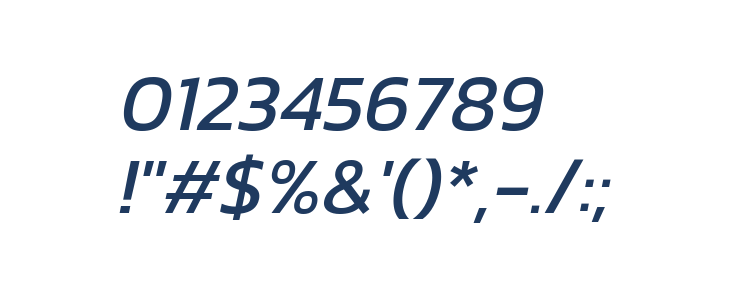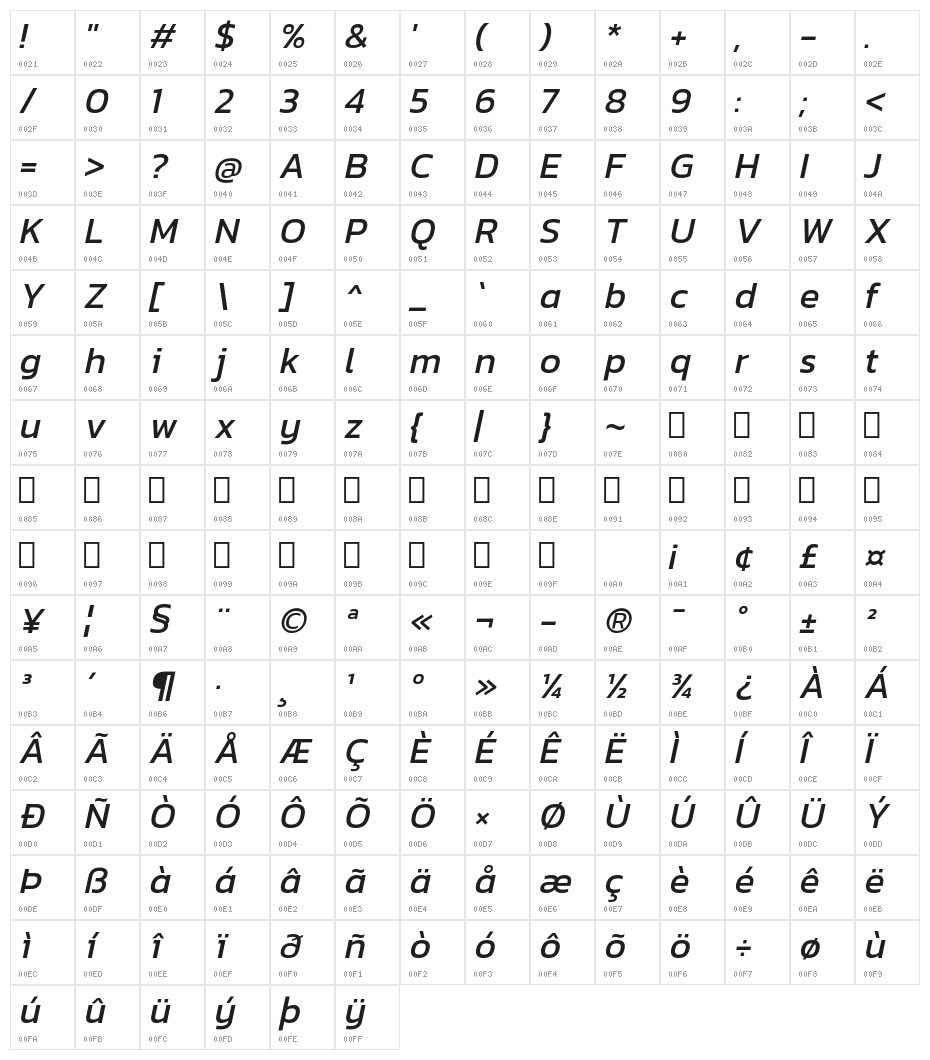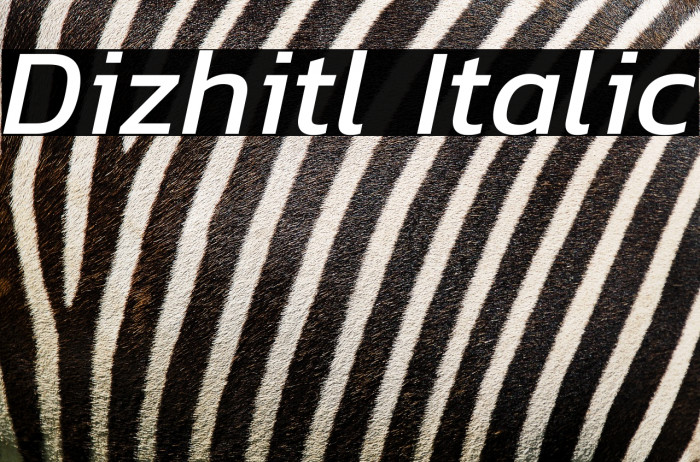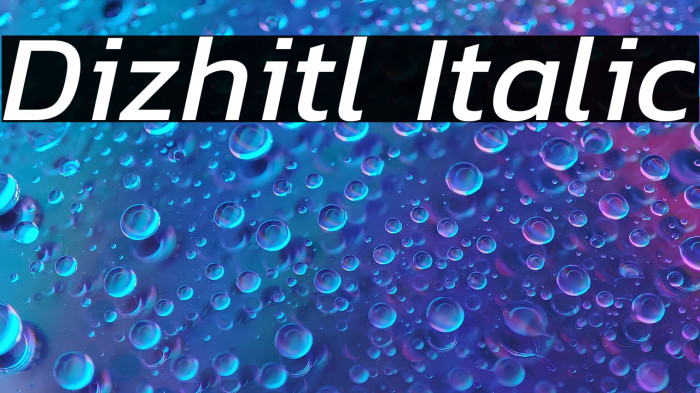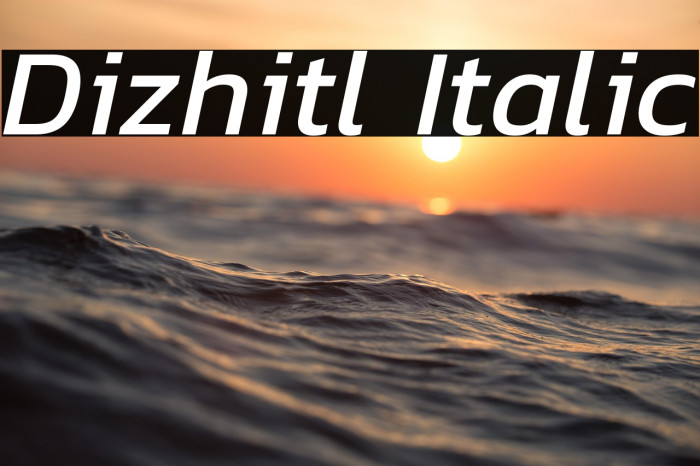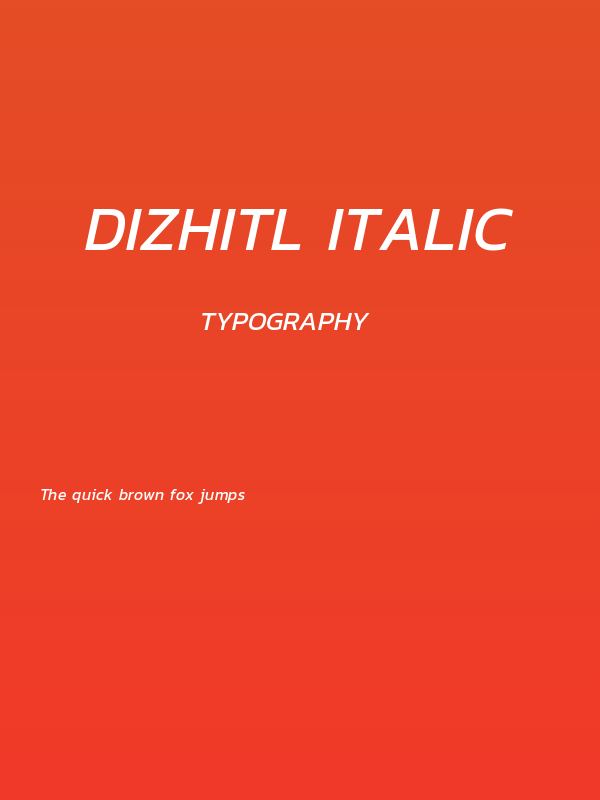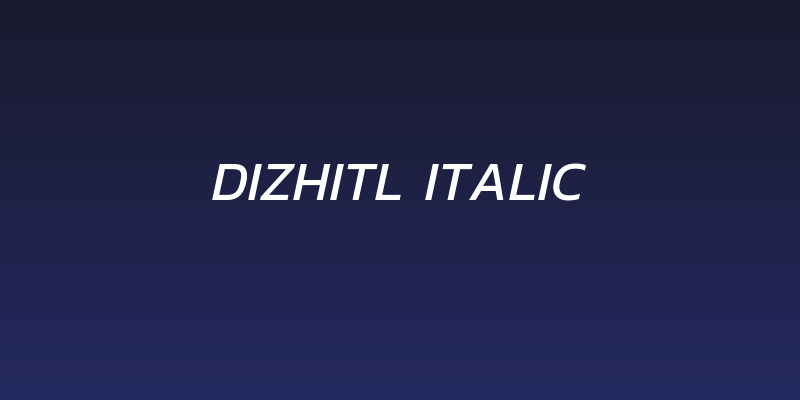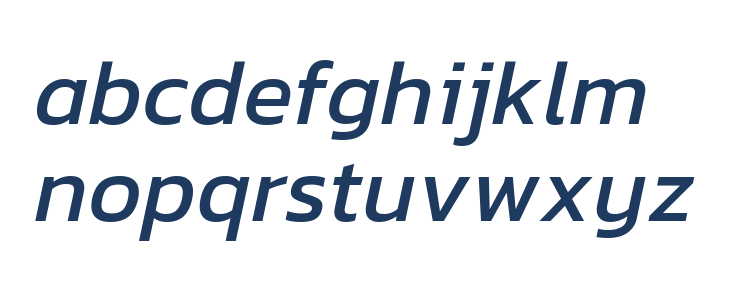
Dizhitl Italic Font
Dizhitl Italic Description
This font features a sleek and modern design with a slight italic slant, giving it a dynamic and forward-moving appearance. The characters are well-proportioned with a consistent stroke width, providing a clean and professional look. The uppercase letters are bold and commanding, while the lowercase letters maintain a harmonious balance. The numerals are clear and easy to read, making them suitable for various applications. Special characters are included, enhancing the font's versatility. Overall, this font is ideal for projects that require a contemporary and stylish touch.